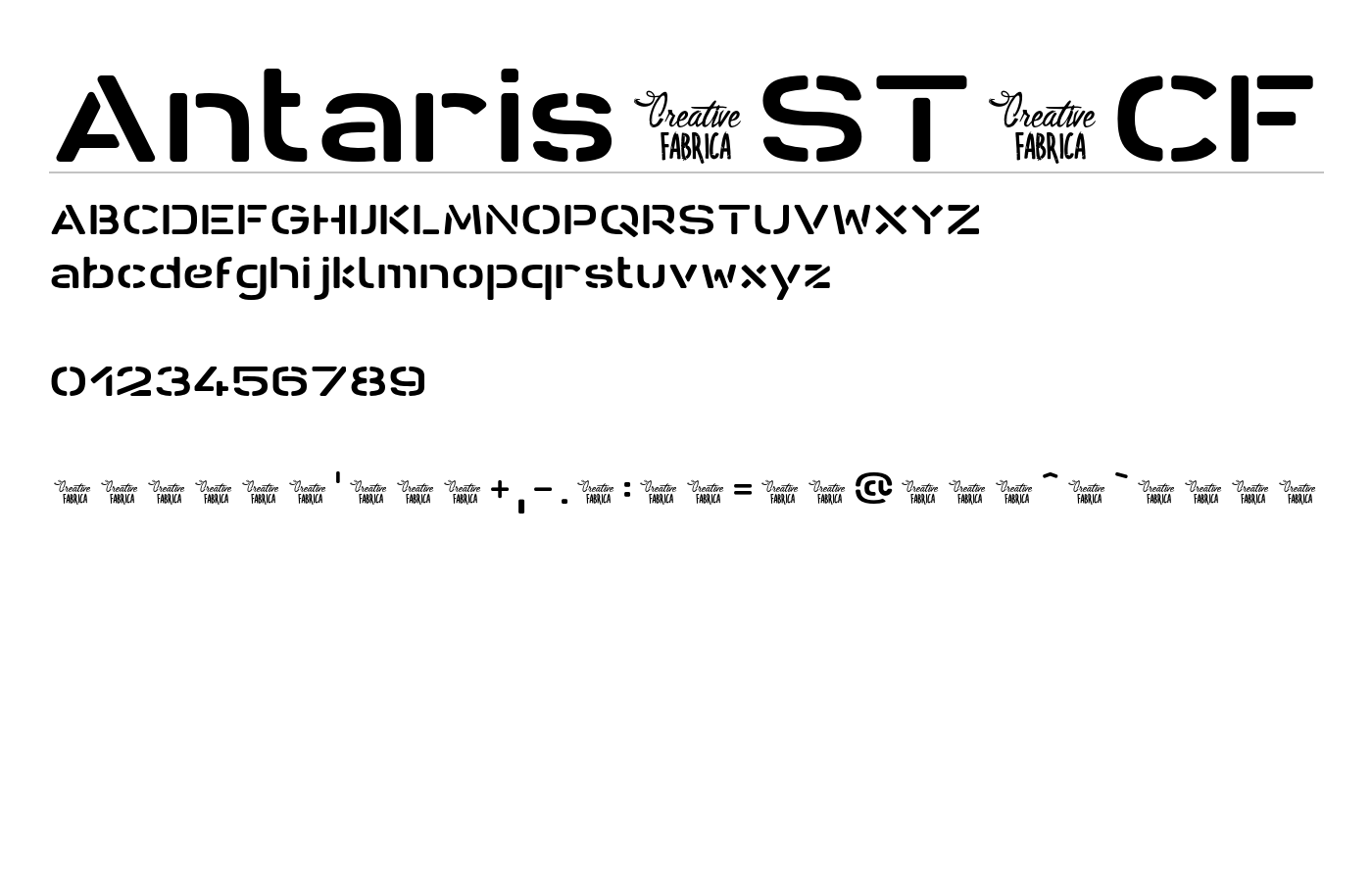
Antaris_ST_CF is a modern sans-serif font characterized by its bold weight, geometric shapes, and open, clean letterforms with rounded corners that give it a friendly yet futuristic feel. Its unique cutouts and stylized characters create a distinctive appearance, making it ideal for tech brands, headlines, and creative projects that seek a contemporary, innovative vibe. This font works well in logos, posters, and digital media where a strong, attention-grabbing presence is needed.
Antaris_ST_CF Font
About Antaris_ST_CF Font